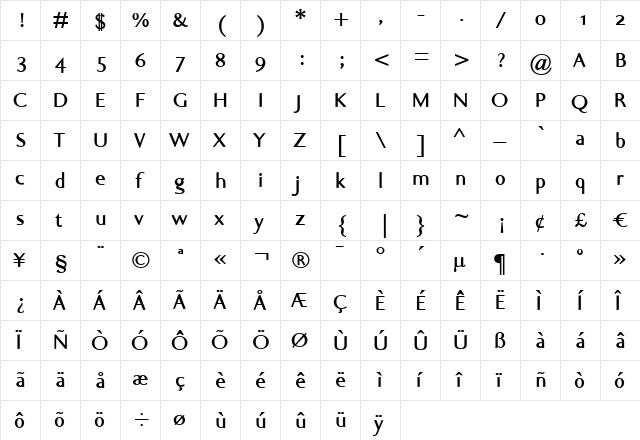
Ela Sans Bold Regular
Design Context for Ela Sans Bold Typeface
Ela Sans Bold offers clean, dependable letterforms without strong stylistic allegiance, making it a practical choice for designers who need flexibility. Its bold stroke weight gives it real presence on the page.
Pro Tip: Use Ela Sans Bold in both headline and body roles to test its range before committing to a single application.